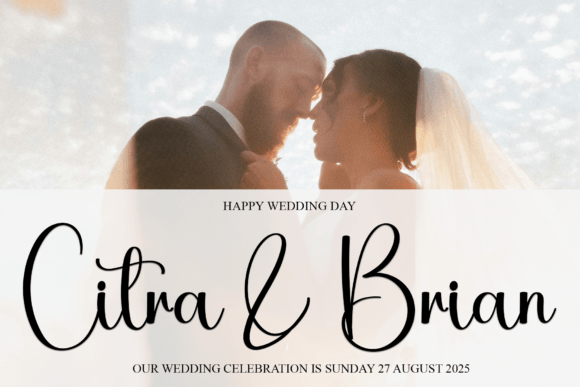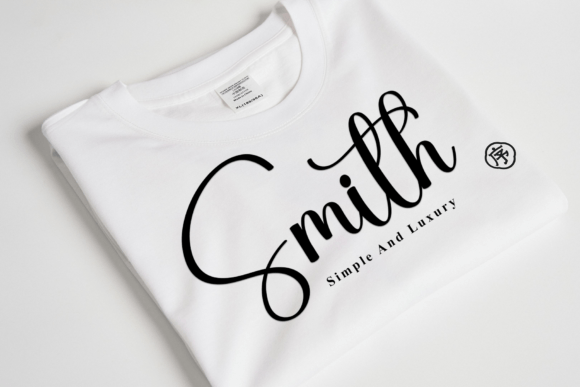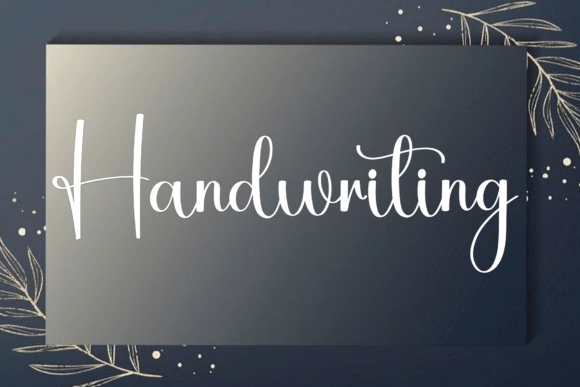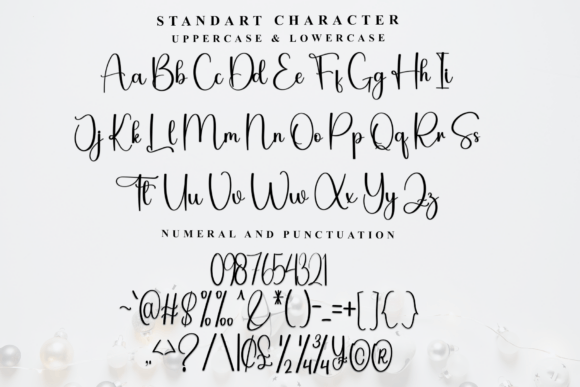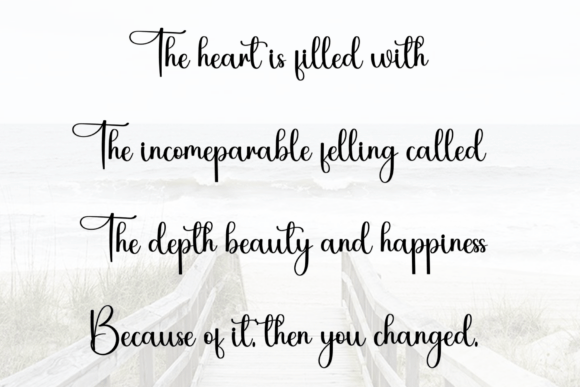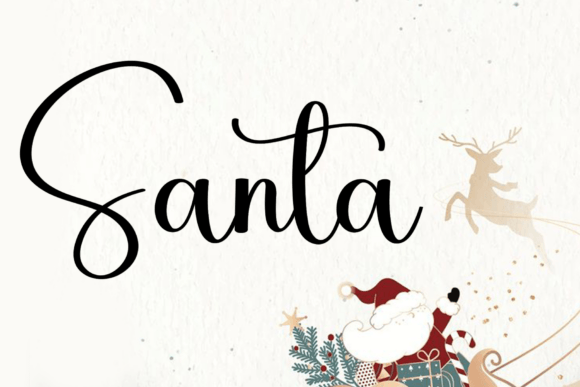
Adding a Touch of Elegance to Your Designs
As a designer, there’s nothing quite like the thrill of bringing a client’s vision to life. For me, it all started with a simple birthday invitation for a close friend. I wanted to create something truly special, something that would capture the essence of the occasion and make it unforgettable. That’s when I stumbled upon the Audrey Birthday Font, a stunning script font that has since become a staple in my design arsenal.
The Audrey Birthday Font is more than just a pretty face – it’s a versatile tool that can elevate any design project. Whether you’re creating wedding invitations, thank you cards, or logos, this elegant font adds a handwritten touch that’s impossible to resist. And with its PUA encoding, accessing all the amazing glyphs and ligatures is a breeze, making it a valuable asset for designers looking to add a touch of sophistication to their work.
Audrey Birthday Font Key Features
- Font Family: A beautiful, cursive script font designed specifically for birthday celebrations.
- Unique Characteristics: Features a whimsical, handwritten style with flowing connections and decorative flourishes, perfect for adding a personal touch to birthday designs.
Audrey Birthday Font Review
I recently had the chance to play around with the “Audrey Birthday Font” and I’m here to share my honest thoughts on it.
- Unique, hand-drawn feel that adds a personal touch to birthday designs
- Includes a range of styles and sizes to suit different design needs
- Works well for digital and print-based designs, including invitations, cards, and more
- Limited character set, which may not be ideal for longer text-based designs
- Some letterforms may not be as precise or polished as more professional fonts
- No bold or italic weights available, which may limit design flexibility
Overall, I’d say the “Audrey Birthday Font” is a fun and creative option for birthday designs. While it has some limitations, its unique feel and versatility make it a great choice for designers looking to add a personal touch to their work.
Use the Audrey Birthday Font to add a touch of elegance and sophistication to your designs.
Pair it with bold colors and eye-catching graphics to create a visually appealing design.
Experiment with different font sizes and styles to create a unique look.
Use the Audrey Birthday Font for:
Invitations and party decor
Birthday cards and gift tags
Wedding stationery and decorations
Any design where you want to add a touch of whimsy and charm
Alternatives to Audrey Birthday Font for Designers
Great Vibes is a modern, elegant script font ideal for creating a sophisticated and celebratory atmosphere. It’s perfect for wedding invitations, birthday cards, and other special occasion designs.
Compared to Audrey Birthday Font, Great Vibes has a more refined and luxurious feel, making it suitable for high-end events or luxury brands. Its flowing lines and soft curves evoke a sense of elegance and sophistication.
Curlz
Curlz is a playful, cursive font that’s perfect for adding a whimsical touch to designs. It’s great for creating a fun and festive atmosphere, making it ideal for children’s birthday parties, baby showers, or other lighthearted celebrations.
Curlz has a more playful and informal feel compared to Audrey Birthday Font, which is more elegant and sophisticated. While Audrey Birthday Font is better suited for formal events, Curlz is perfect for casual gatherings and parties.